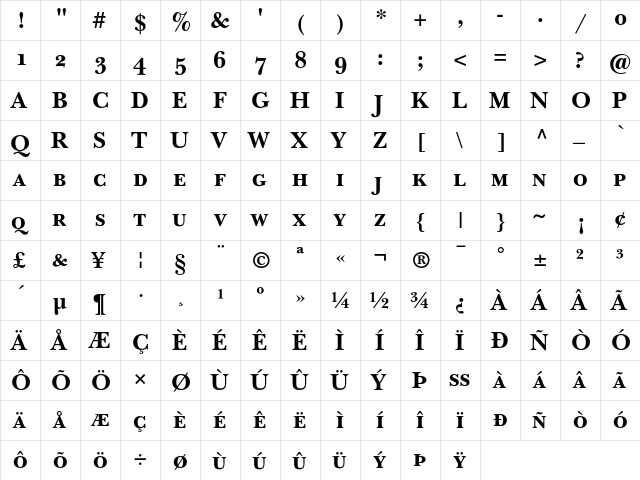
ITC New Baskerville Bold Small Caps & Old Style Figures
Design Context for ITC New Baskerville Typeface
ITC New Baskerville offers clean, dependable letterforms without strong stylistic allegiance, making it a practical choice for designers who need flexibility. Its bold stroke weight gives it real presence on the page.
Pro Tip: Use ITC New Baskerville in both headline and body roles to test its range before committing to a single application.